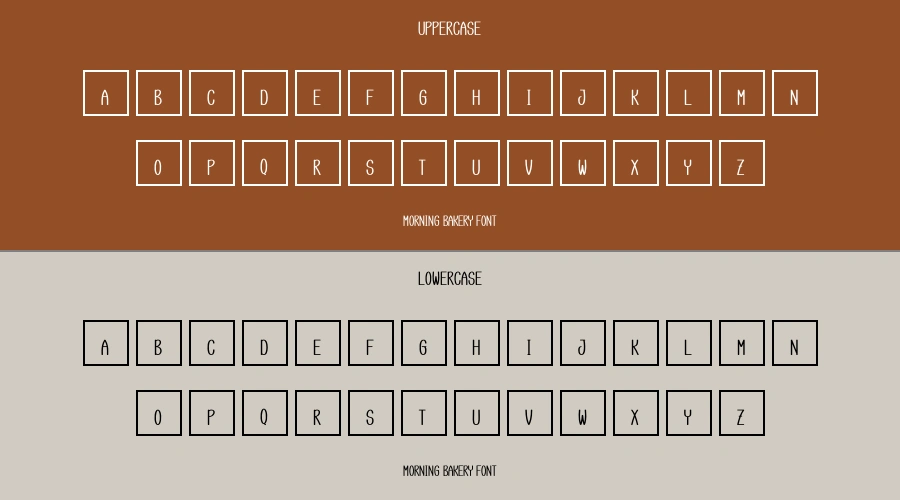
About Morning Bakery Font
Morning Bakery Font stands out for its distinctive combination of artistic freedom and signature style. Ideal for merchandise graphics, it provides the accuracy and refinement that professional projects demand. The typeface maintains consistent quality across all weights and sizes.
Key features include refined consistent strokes and practical expert sets, enhancing typographic expression. In sidebars applications, Morning Bakery Font demonstrates exceptional digital conversion. The crossbar height and brand personality contribute to its distinctive character and professional appeal.